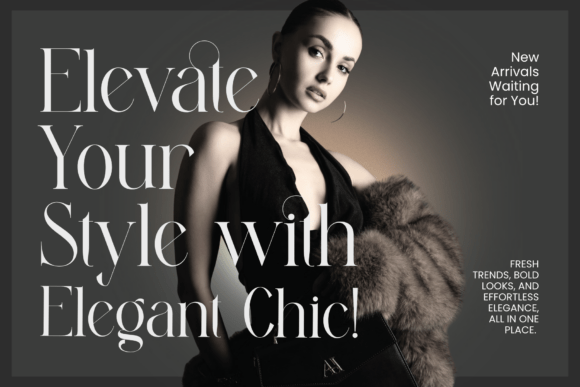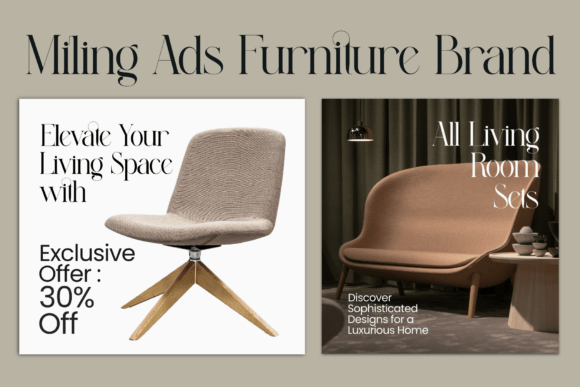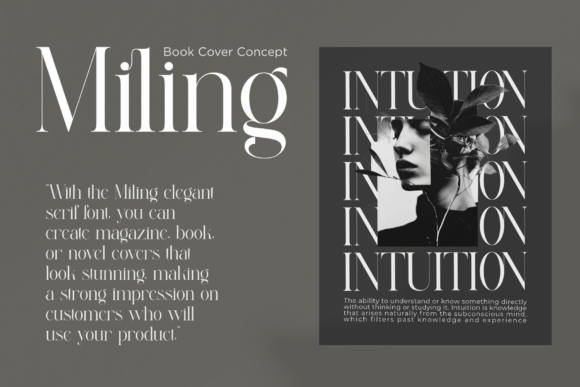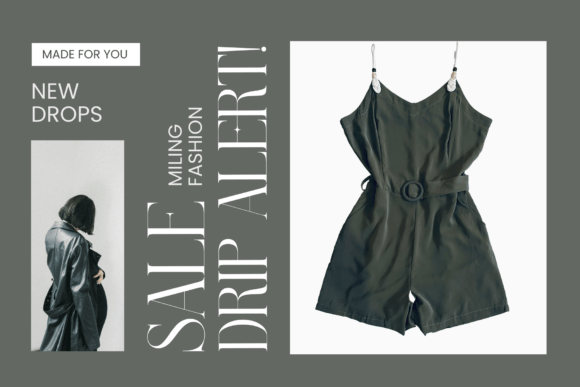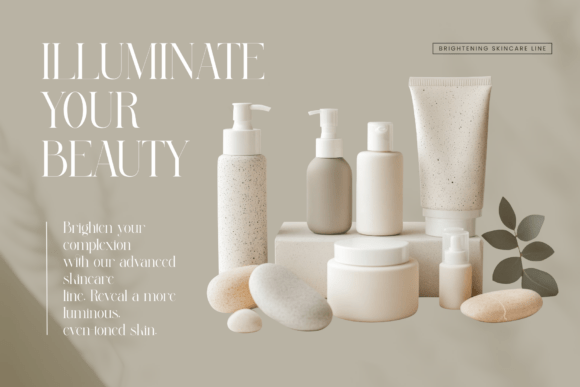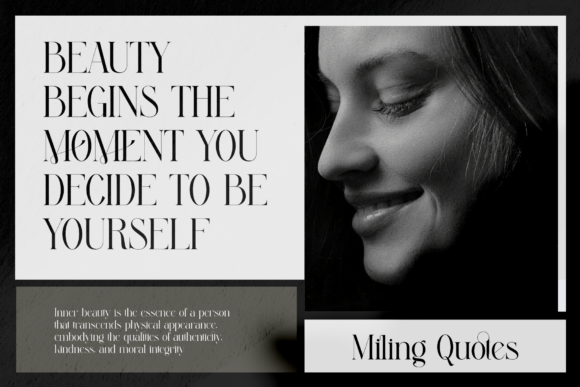
Introduction to Miling Font
Miling is a contemporary serif typeface that seamlessly blends minimalist design with crisp detail.
It draws inspiration from the clean lines of modernity and the precision of industrial aesthetics, resulting in a refined yet striking typographic personality Miling is the go‑to modern serif for designers seeking a blend of geometric sharpness and refined serif detail.
Key Features of Miling Font
Why Choose Miling Font?